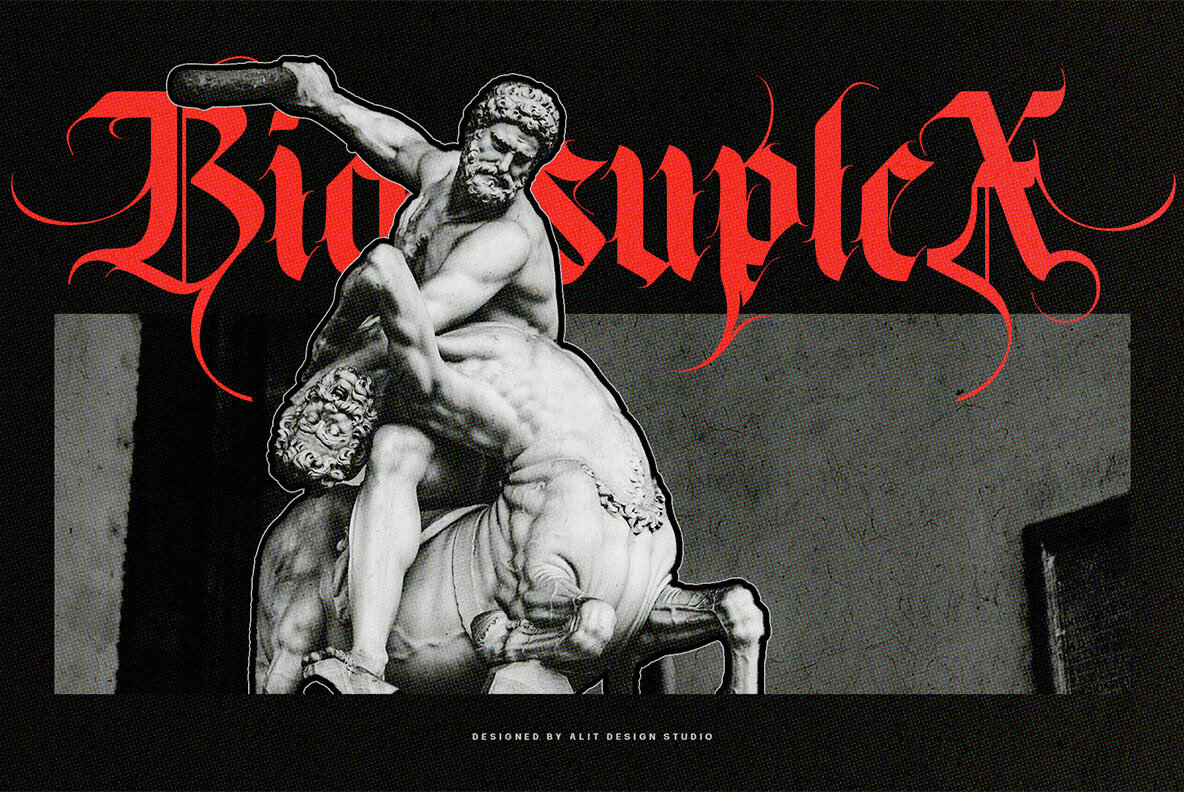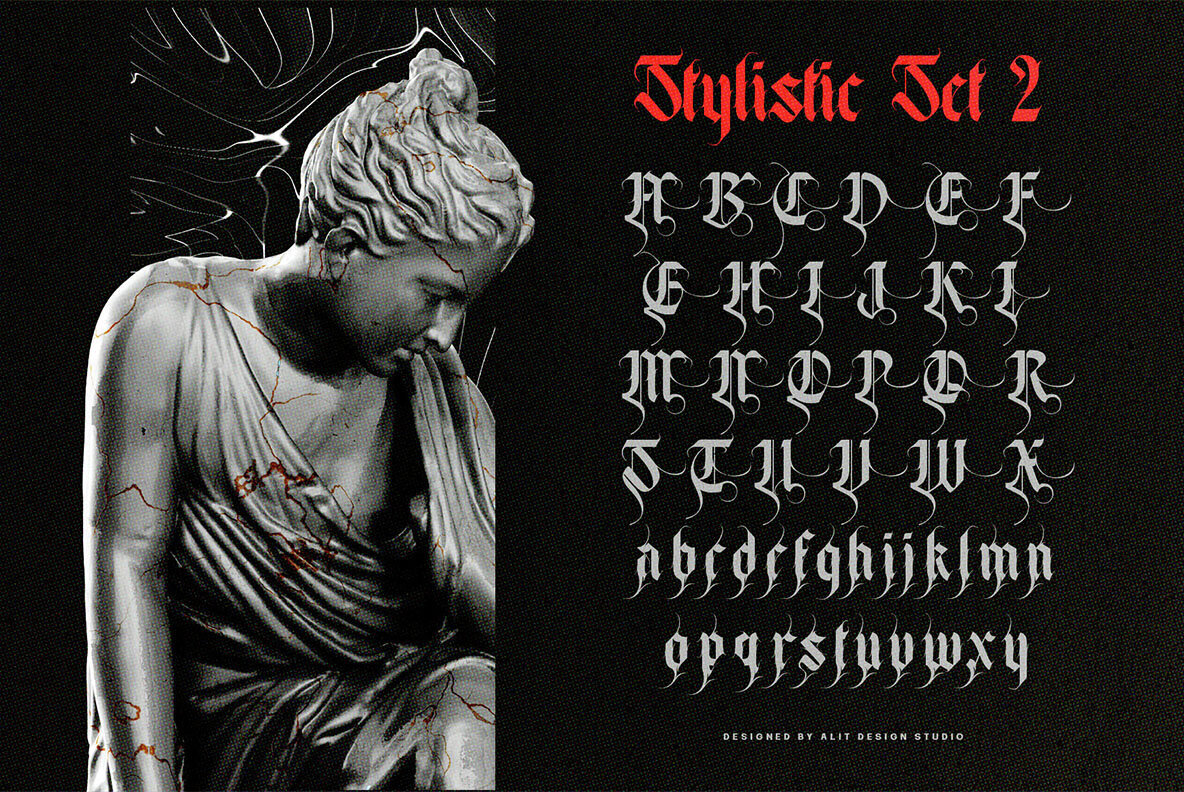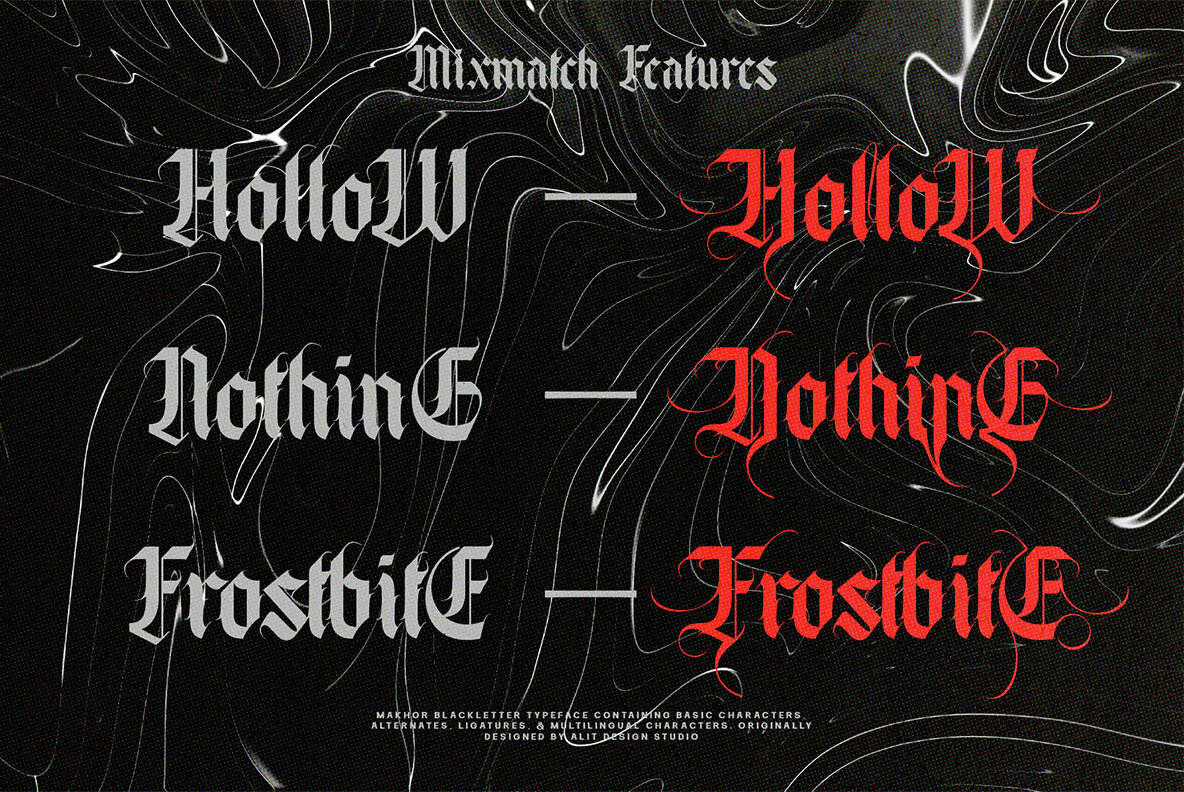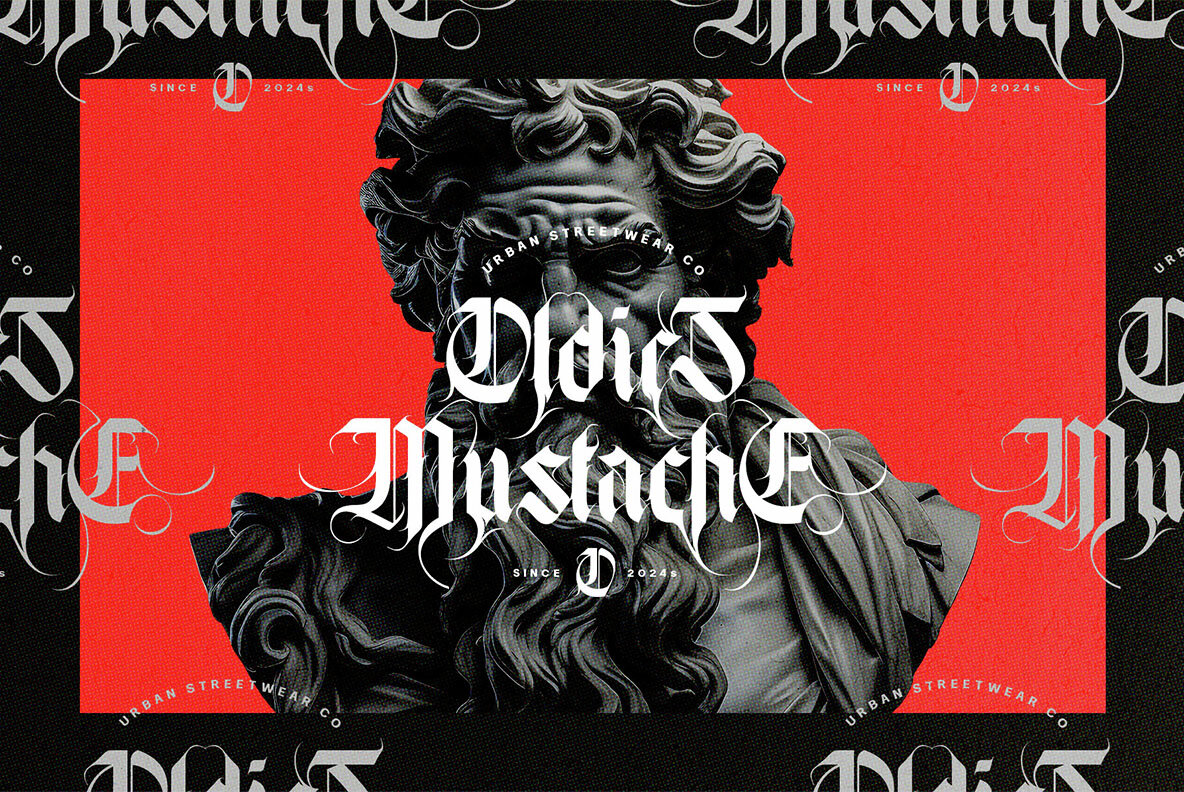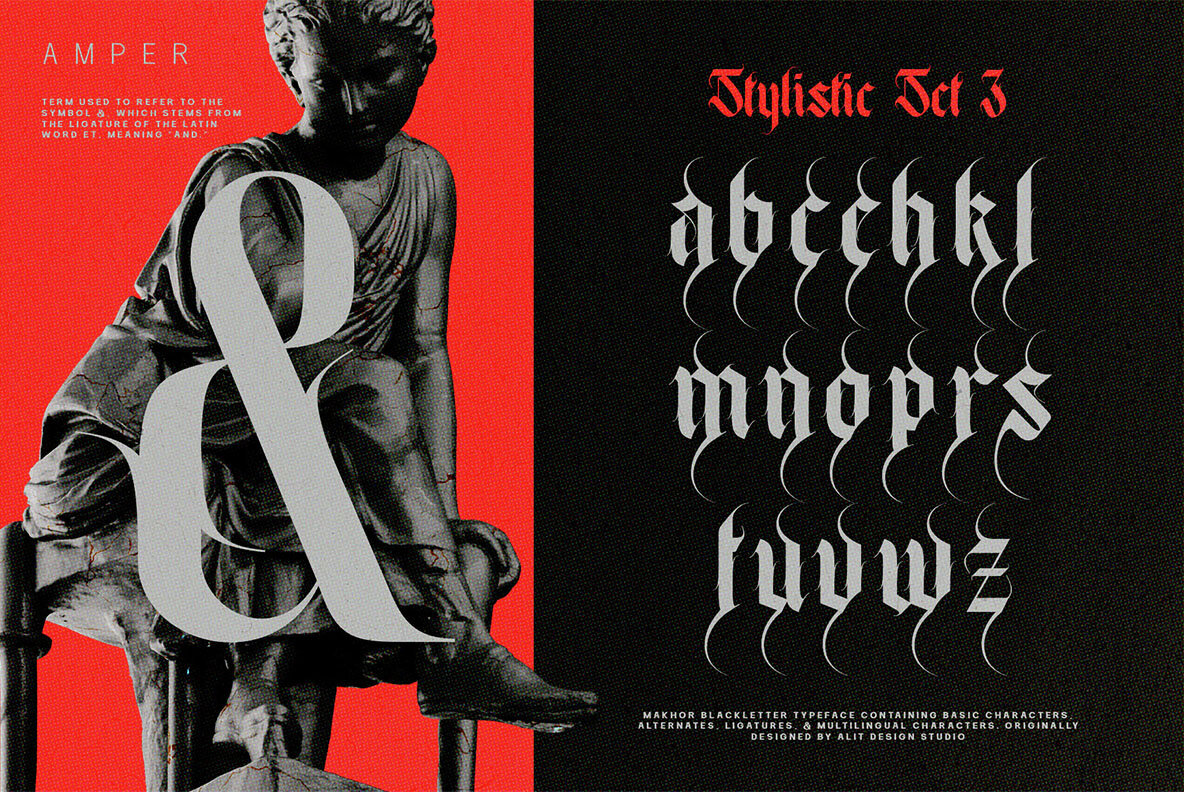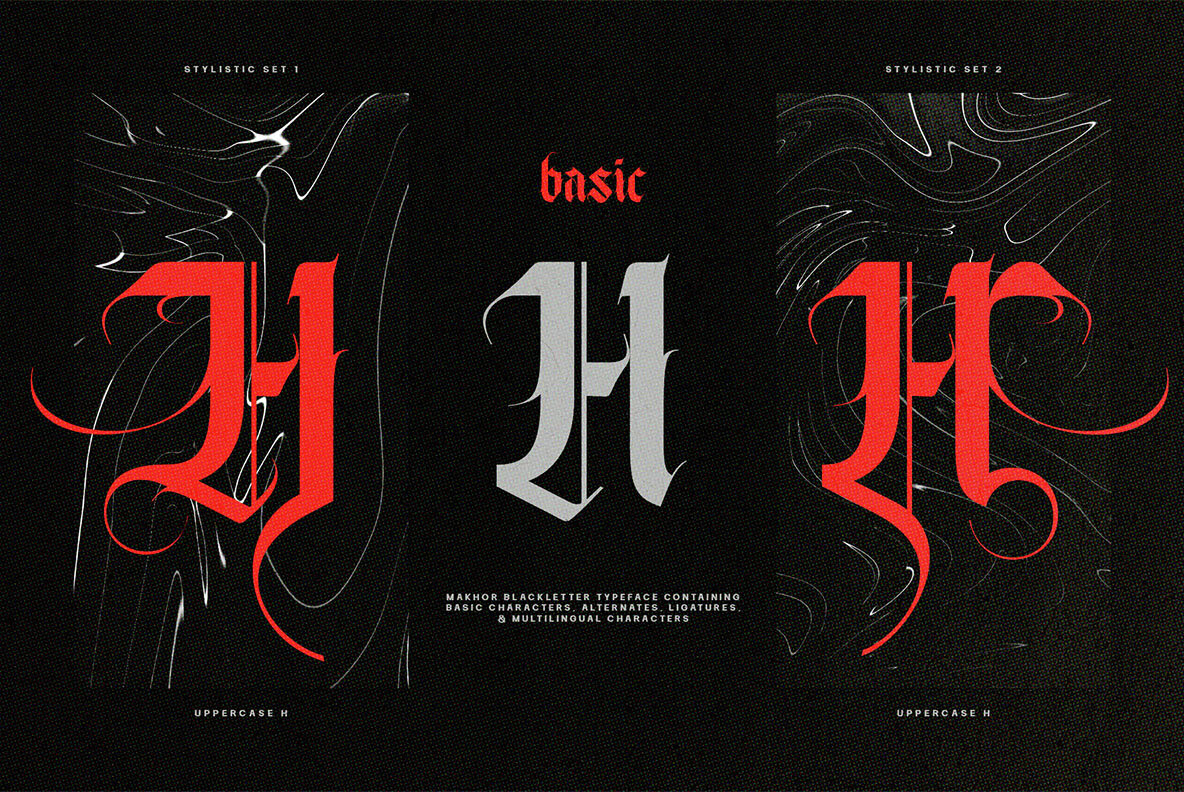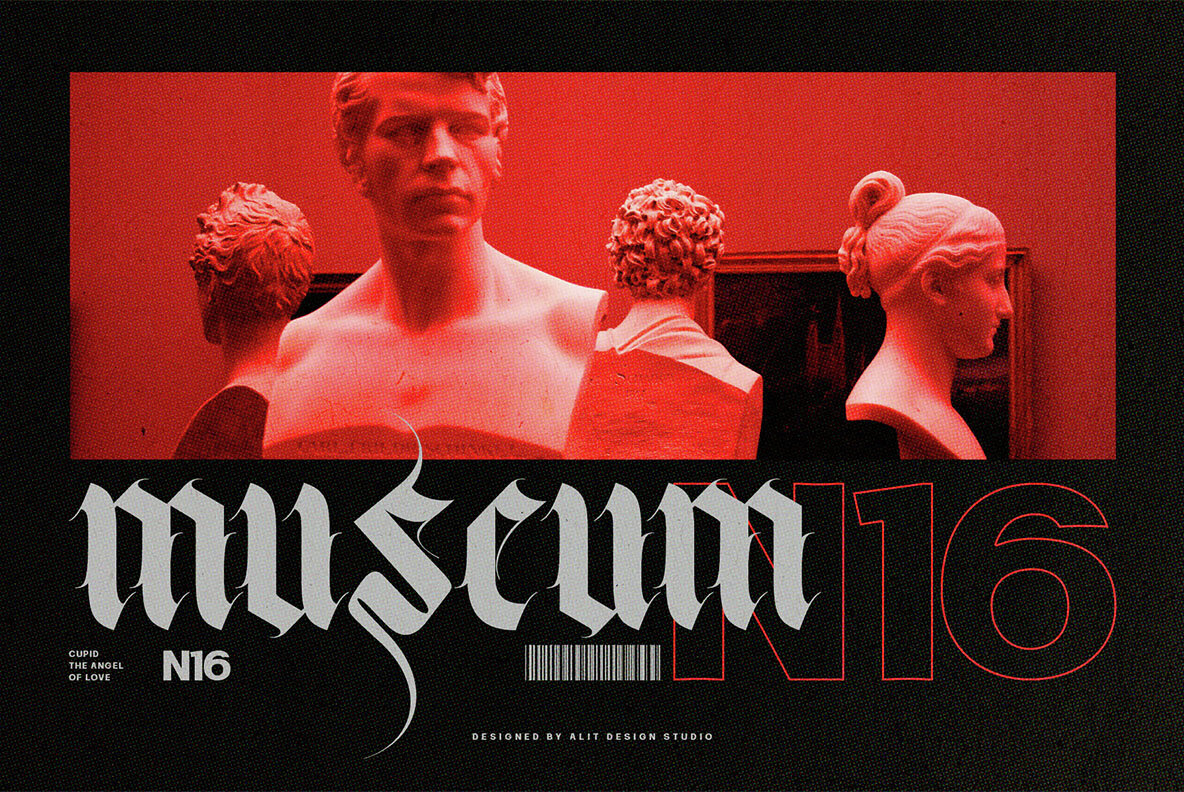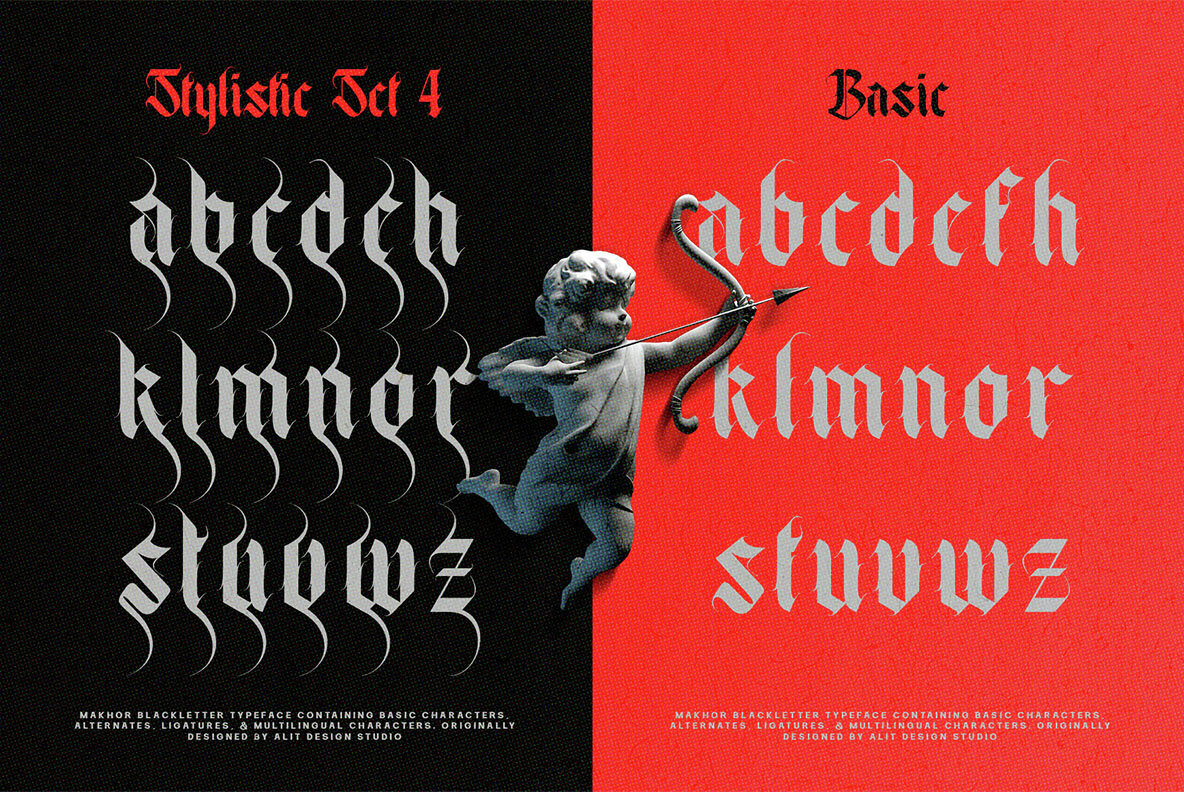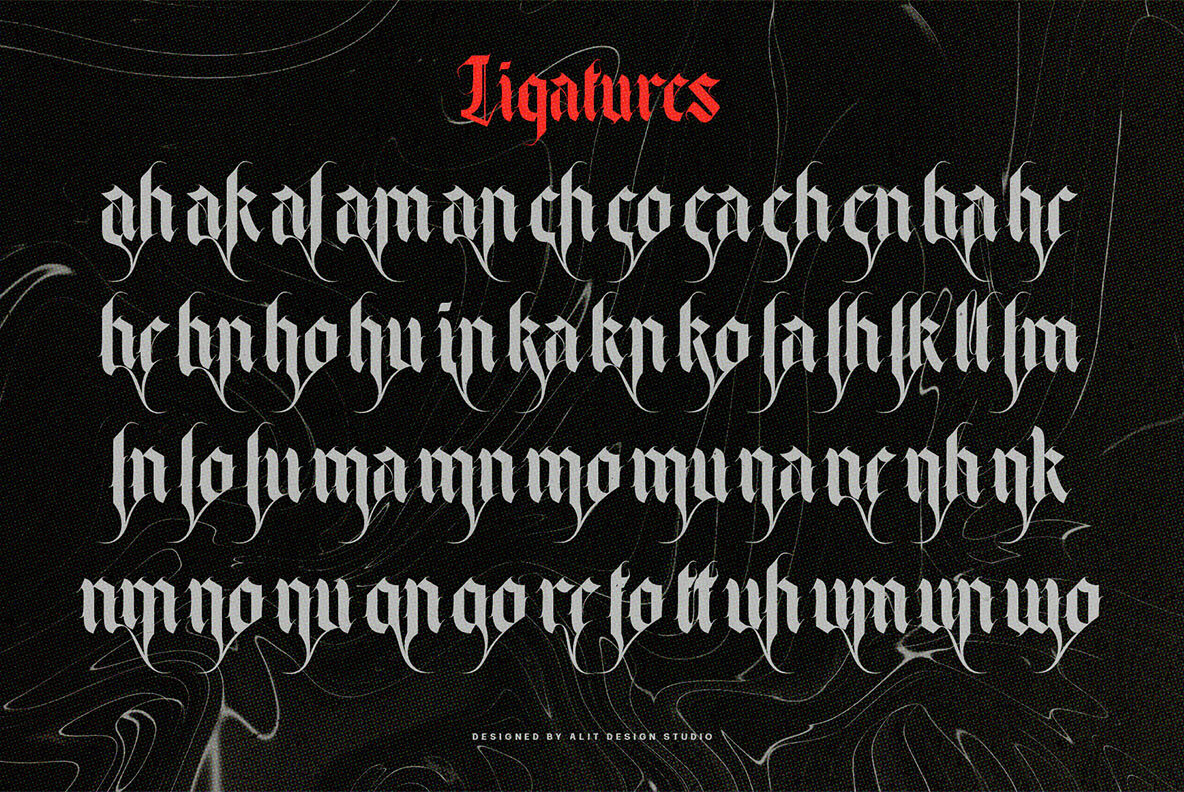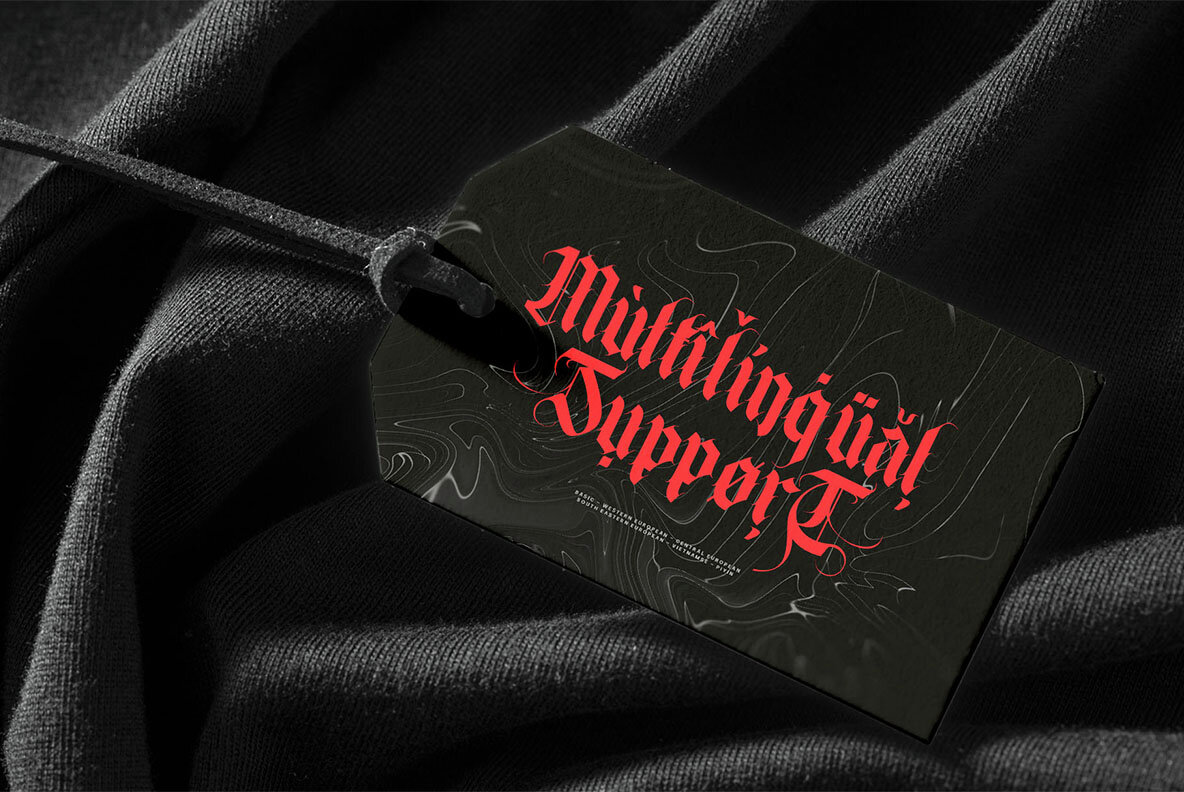
Introducing Makhor Metal, a bold and authoritative blackletter typeface designed to make a statement. With its intricate design and historical roots, Makhor Metal brings a touch of vintage charm to any project. Crafted with meticulous attention to detail, this typeface is perfect for projects requiring a distinctive and powerful aesthetic. Makhor Metal's intricate design and historical roots make it ideal for a range of projects. Whether you're working on logos, headlines, posters, or branding materials, this blackletter typeface provides the tools you need to make a lasting impression. Its bold style suits a wide variety of design projects, adding a unique edge to your work. Explore other bold and intricate blackletter fonts like Makhor Metal at YouWorkForThem. Visit our Blackletter Fonts and Decorative Fonts collections for more font options to suit your design needs.Makhor Metal Blackletter Typeface: A Bold and Authoritative Font
Key Features of Makhor Metal
Why Choose Makhor Metal?
Perfect for Various Design Projects